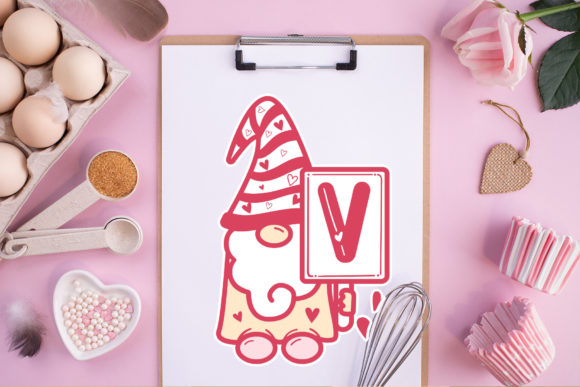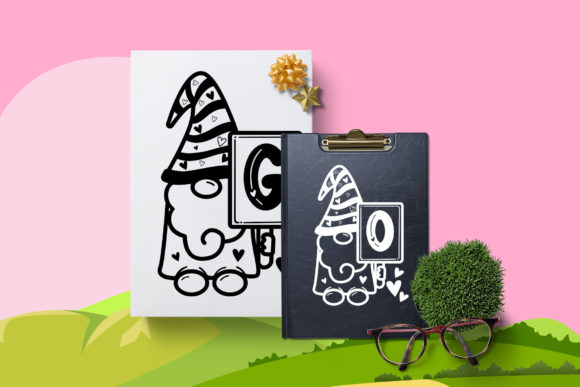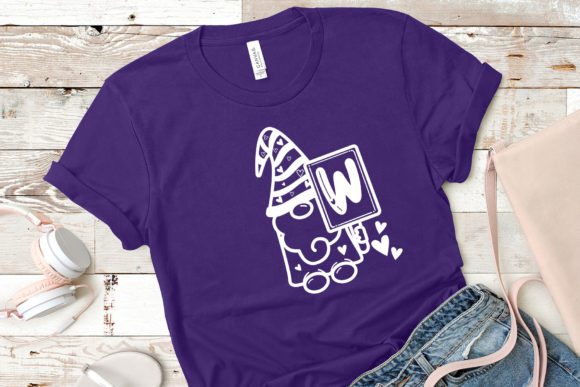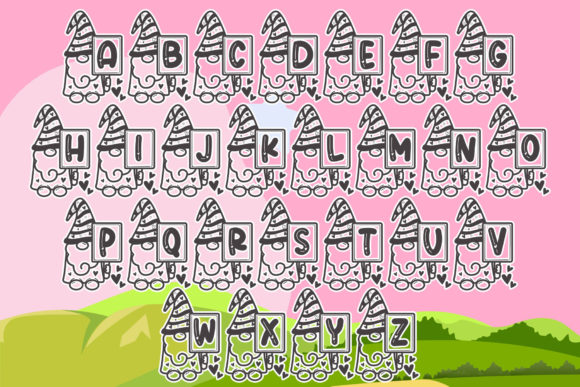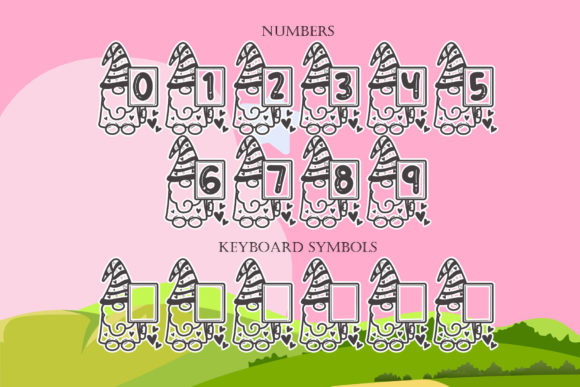
Introduction to Monogram Lovers Gnome Font Font
Fonts play a crucial role in design, and the Monogram Lovers Gnome Font font is a typeface that brings both character and versatility to any project. Whether you’re working on a branding project, a website, or a print design, the Monogram Lovers Gnome Font font offers a unique style that can elevate your work.
Monogram Lovers Gnome is a cute, jolly and unique decorative font.
Whether you use it for cartoon related designs, children games or just any creation that requires a lovely touch, this font will be an amazing choice .
Key Features of Monogram Lovers Gnome Font Font
Why Choose Monogram Lovers Gnome Font Font?
The Monogram Lovers Gnome Font font is more than just a typeface – it’s a design tool that helps you communicate your message with style and clarity. Its unique character set and versatile design make it suitable for a wide range of applications, from elegant invitations to bold headlines.
With its carefully crafted letterforms and balanced proportions, the Monogram Lovers Gnome Font font ensures readability and visual appeal across all mediums.
What makes Monogram Lovers Gnome Font font special?
The Monogram Lovers Gnome Font font stands out with its unique design, exceptional readability, and versatility across various design applications.